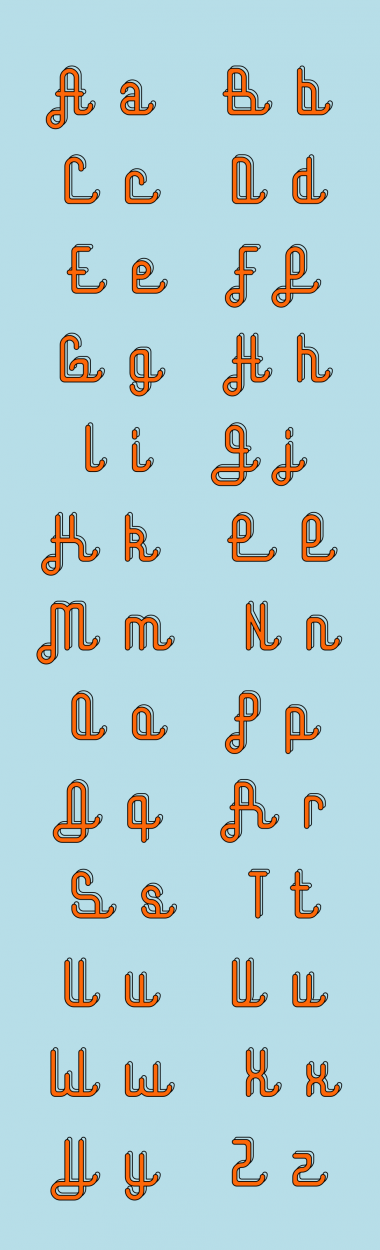
submarine
It looks as though you started off thinking about a script design - but have spaced it too widely. Would it be worth closing the letter spacing?
I'm not sure about the N, it might be better looking like a large lowercase n. Also, the K looks like an H.
I agree with p2pnut on the spacing,
Other than that, I continue to be impressed with your fonts. 10
@p2pnut i actually like the wide spacing. perhaps I will make a clone where the glyphs are properly connected.
@winty5 i agree with you about the N and have changed it accordingly but i think i'll leave the K as it would be more distinguishable in actual words.